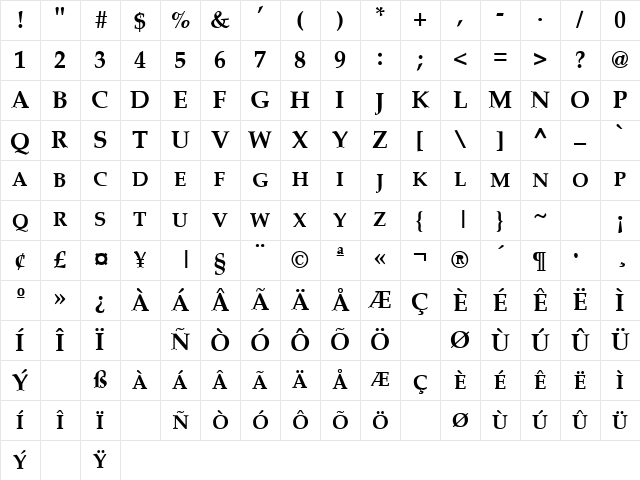
PalatineExpert Bold Free Font
PalatineExpert Bold
PalatineExpert Family
Design Context for PalatineExpert
PalatineExpert is a composed and adaptable typeface that performs quietly and consistently across a wide range of design contexts. Its bold stroke weight gives it real presence on the page.